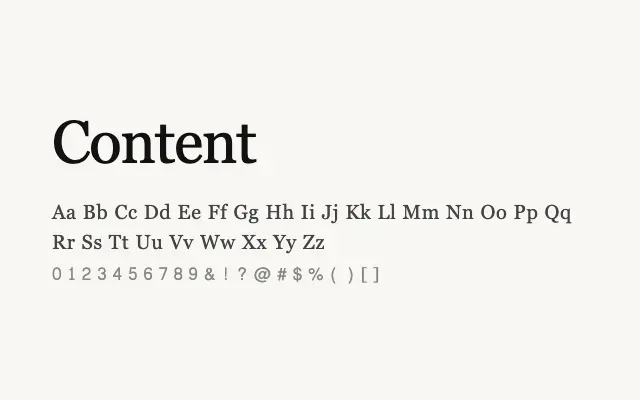
A clean, functional Khmer typeface providing solid display and body coverage for Cambodian-language content.
Content addresses the limited availability of quality Khmer fonts on the web, offering two weights suitable for both headlines and body text. Its straightforward construction prioritises legibility on screen over stylistic flourish. A practical workhorse for Khmer-language publishing.
Designed specifically for the Khmer script with regular and bold weights, offering practical coverage for Cambodian-language digital content. Forms follow conventional Khmer typographic conventions with clean execution.